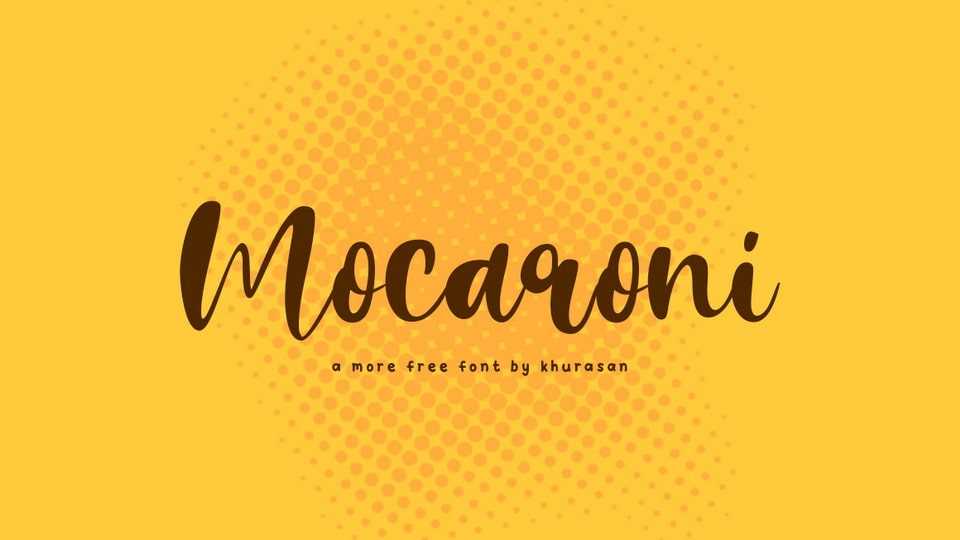
Download Mocaroni font, a smooth and sweet calligraphy script typeface that will add a charming, natural touch to any projects. Handcrafted with care, Mocaroni font is well suited to create everything from wedding invitations to logos – all with an authentic feel.